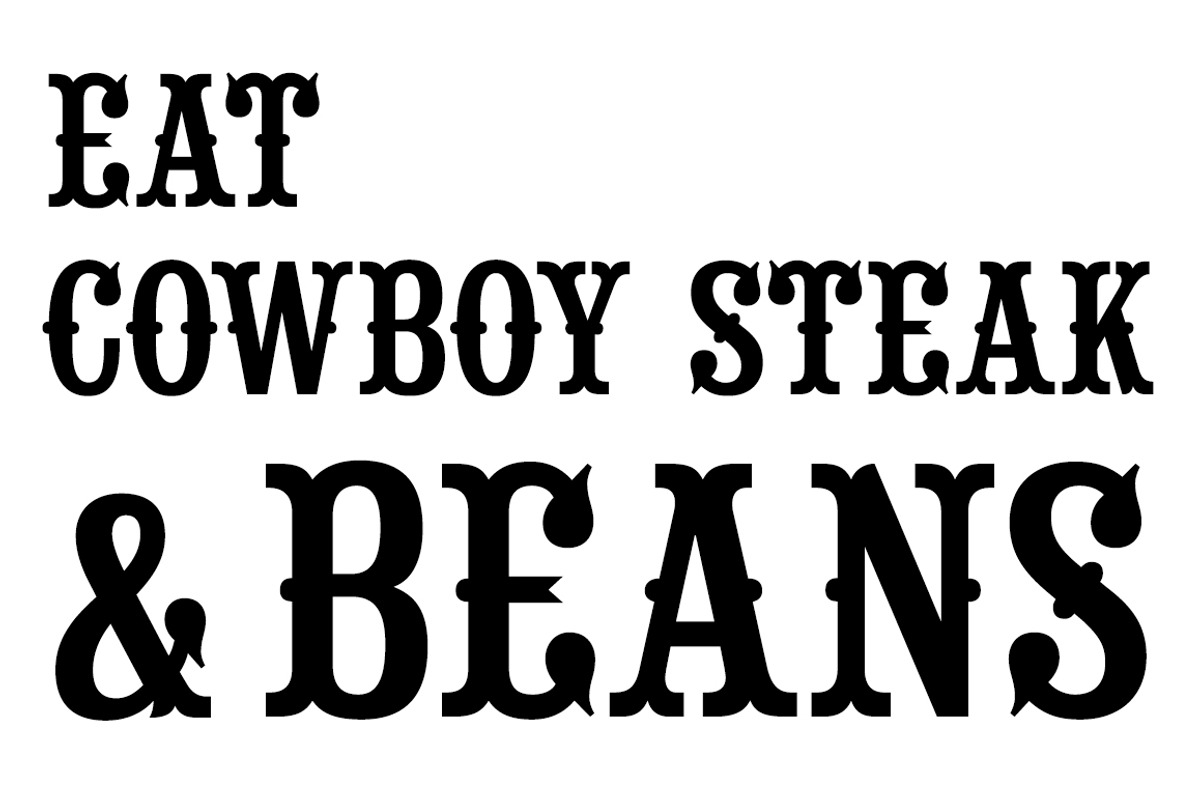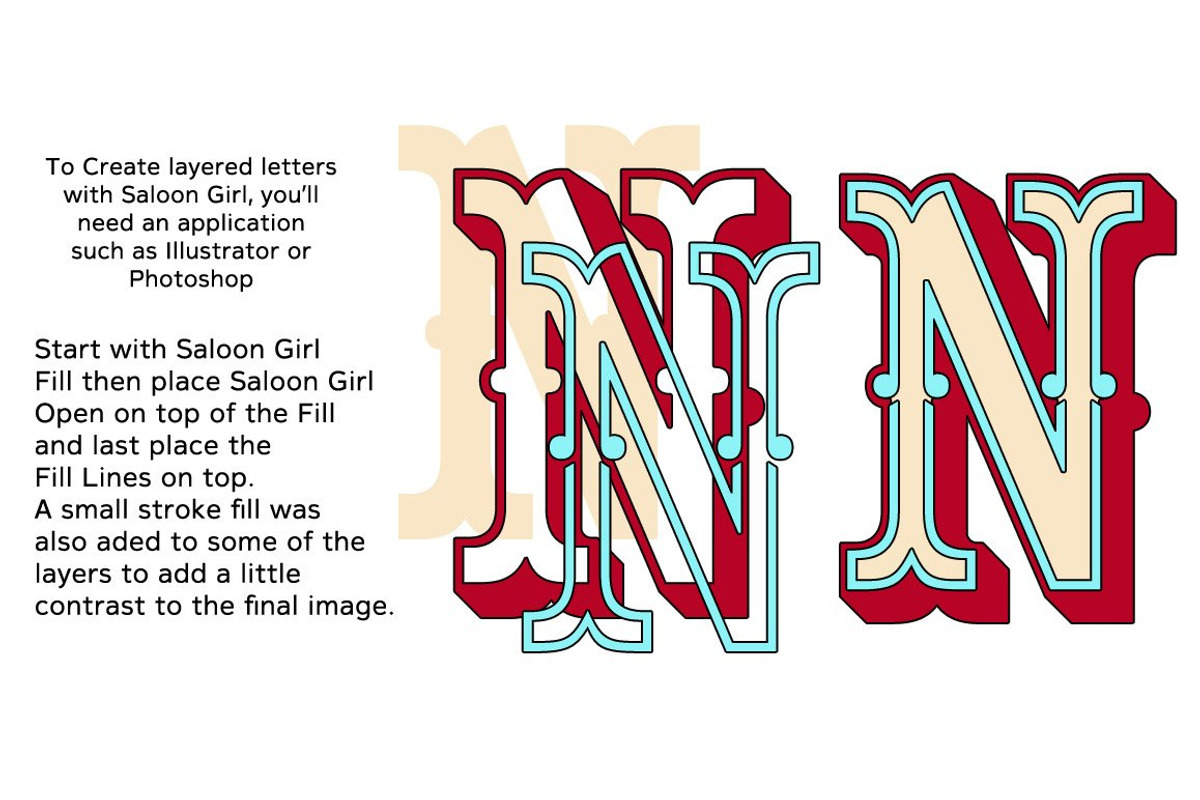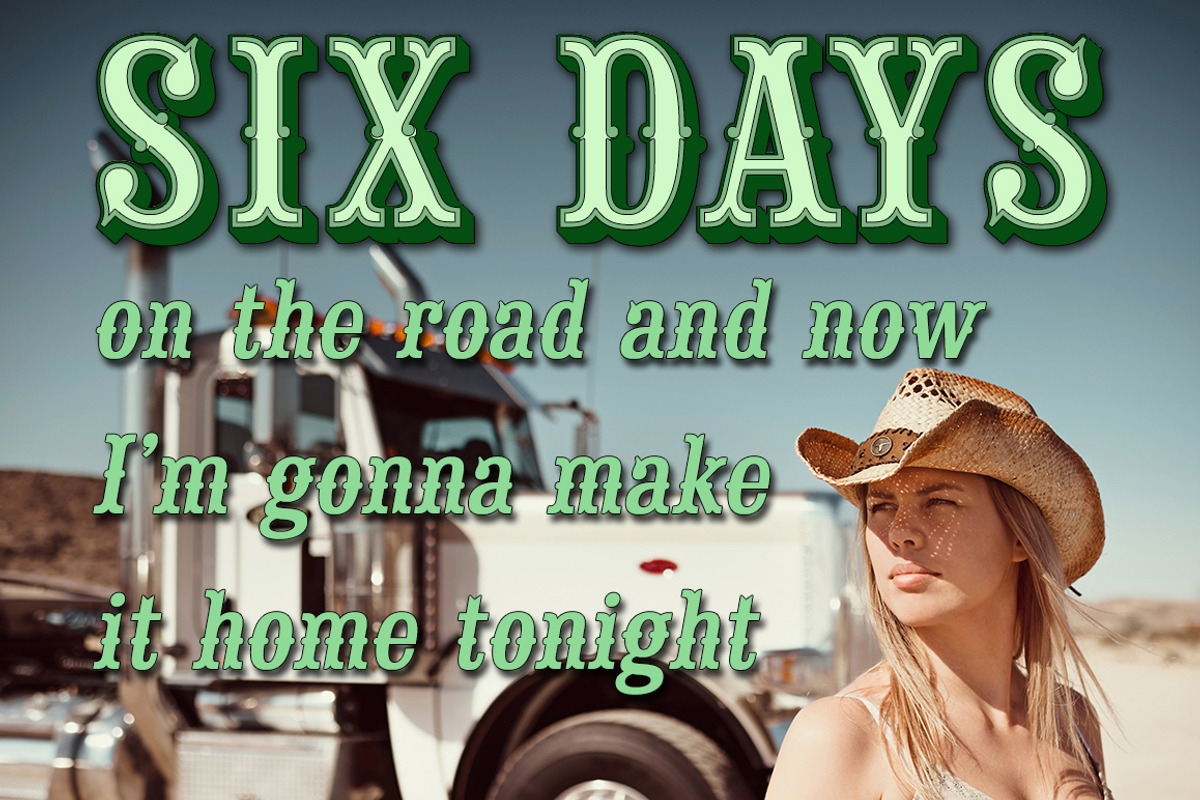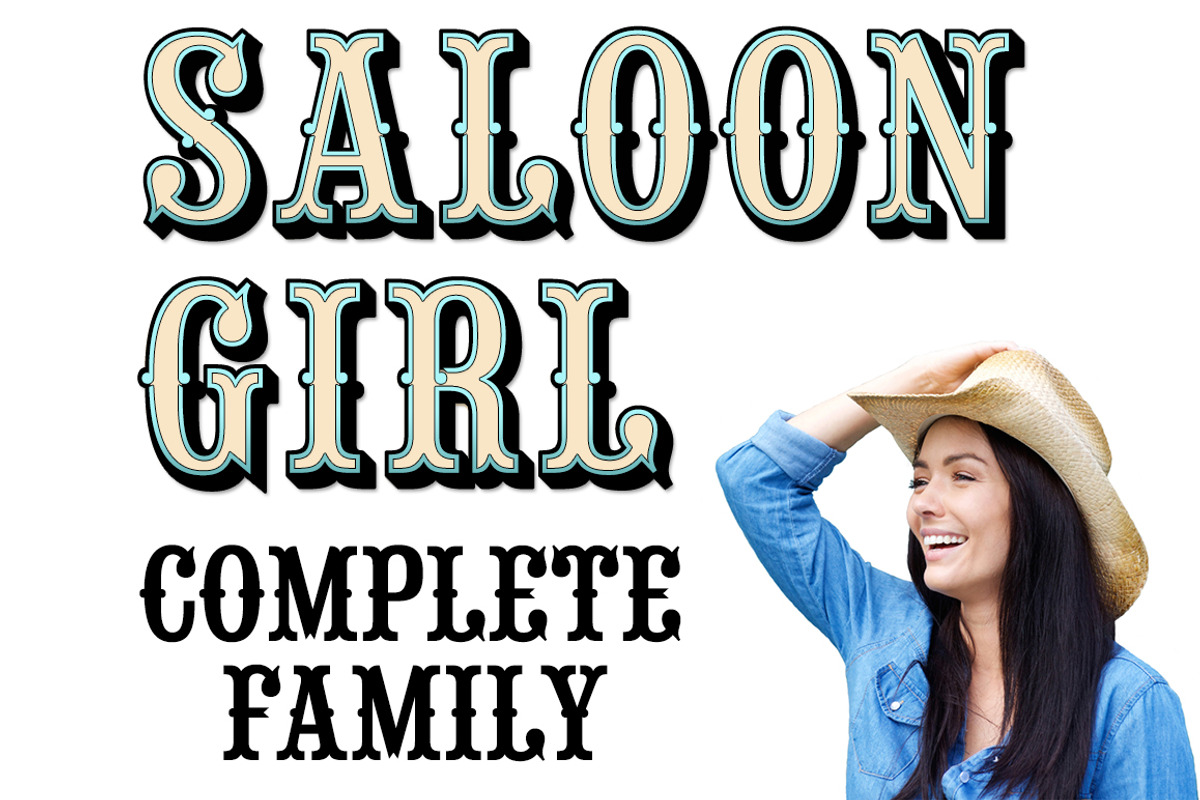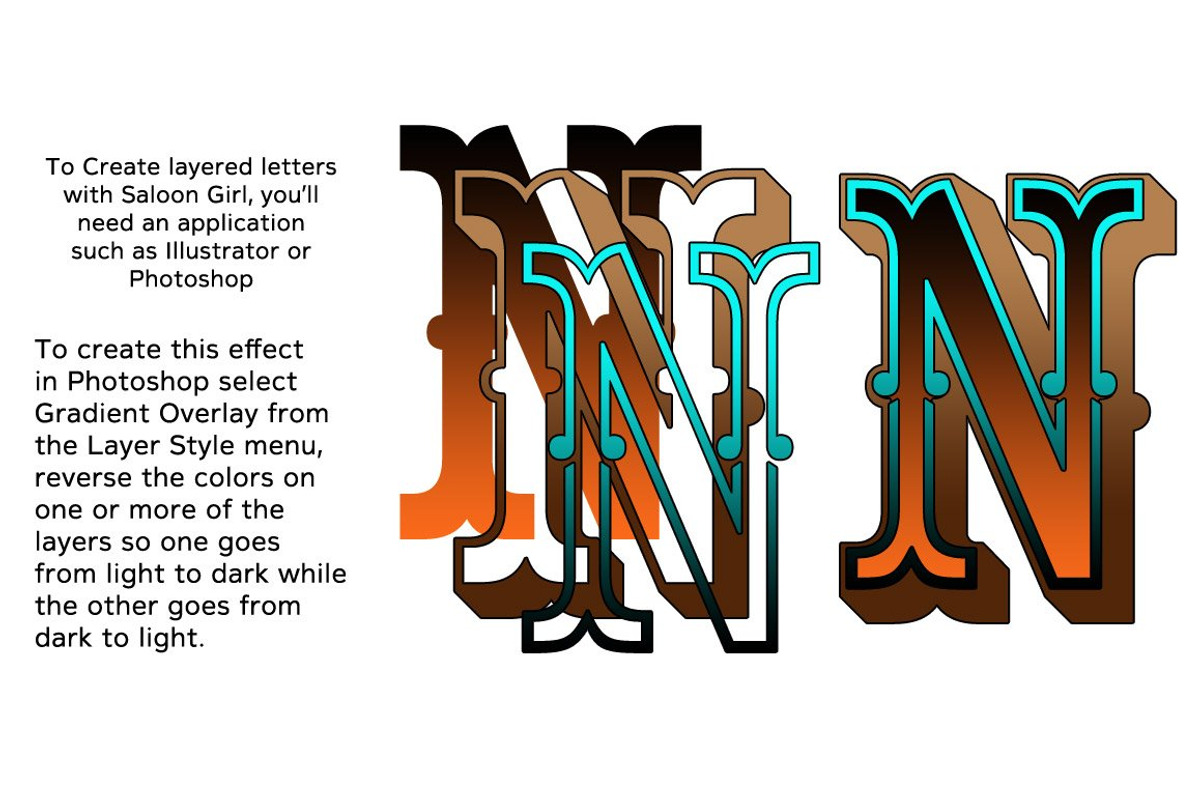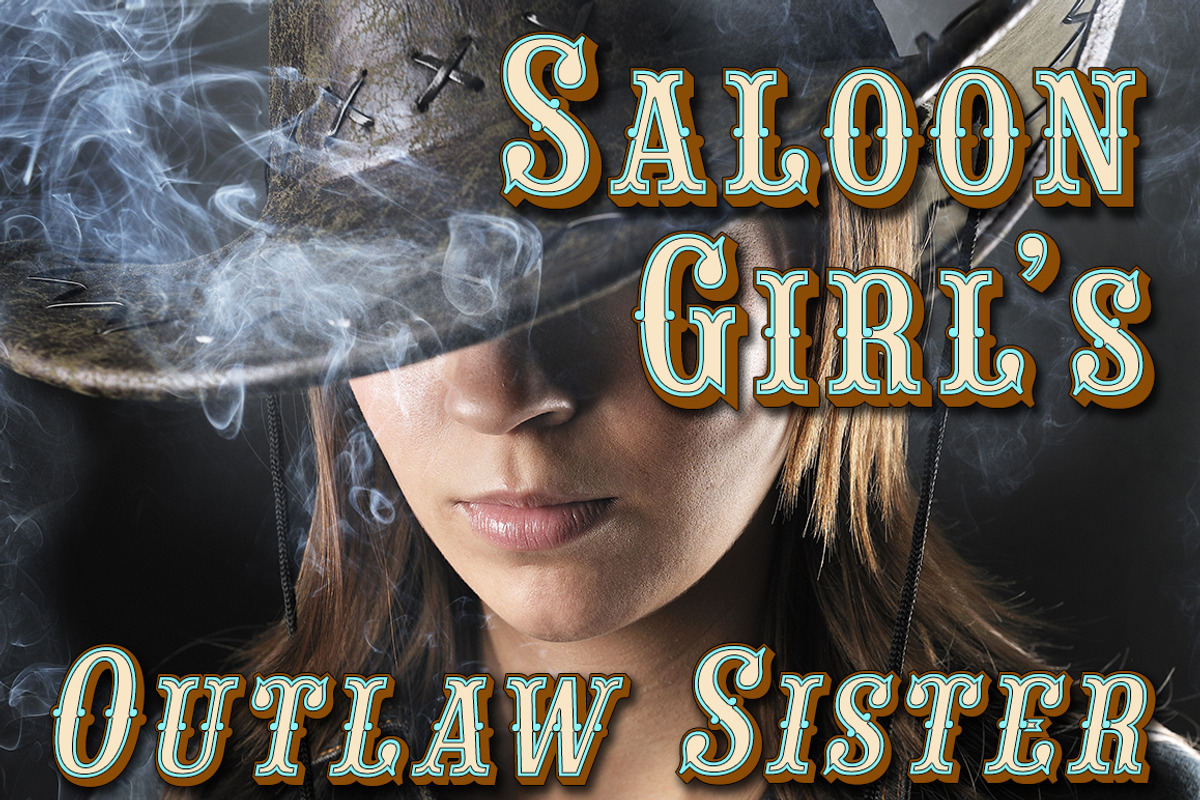
Saloon Girl Complete
Saloon Girl™ is a revival of an old classic font used by sign painters and includes the rarely seen lowercase. This version of Saloon Girl is all new for 2021, we've added italics and small caps which are available as separate sets or in the complete family pack of 24 fonts.
Saloon Girl comes with extra fill fonts, you will need an application that works in layers in order to use the fill fonts that come with FontMesa fonts.